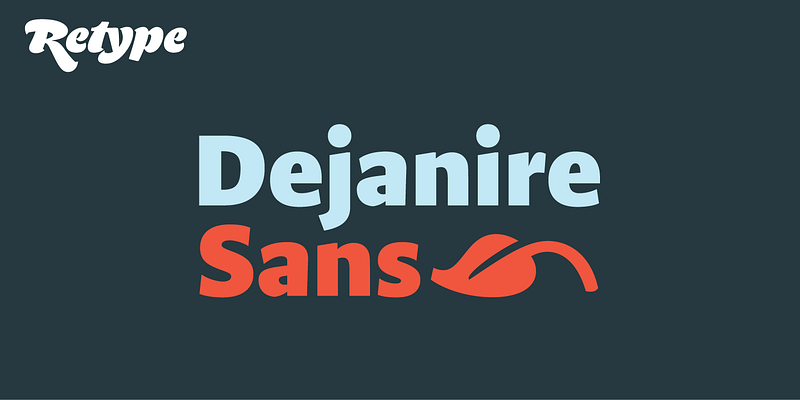
Dejanire Sans Font Free Download is a sophisticated sans-serif typeface that balances classic elegance with contemporary utility. As the sans companion to the Dejanire type family, it retains the refined character and humanist influences of its serif sibling, but with a clean, modern twist. This makes it ideal for editorial layouts, branding, websites, luxury packaging, and any design project where understated sophistication is key.
Dejanire Sans Font Free Download features soft curves, open counters, and a gentle rhythm that make it highly legible and versatile across sizes and formats. It offers a full range of weights and styles, allowing for strong typographic hierarchy and consistency across print and digital media.
Whether you're designing a minimalist magazine spread or a boutique brand identity, Dejanire Sans provides the quiet confidence and polished detail that elevate professional design.
Refined, modern, and beautifully crafted—Dejanire Sans is a go-to typeface for designers who value clarity with a touch of timeless elegance.